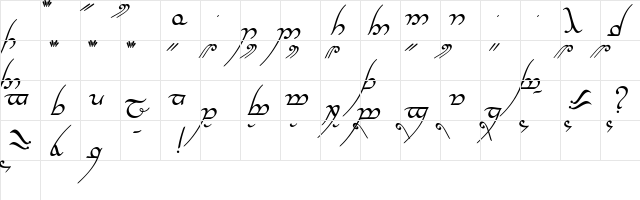
Tengwar Annatar Alt Italic
| Designer | Johan Winge |
Tengwar Annatar Alt takes a measured approach to typography — its balanced proportions and neutral character make it a reliable workhorse for both digital and print work. Its italic angle brings a sense of urgency and motion to the letterforms.
Pro Tip: Try Tengwar Annatar Alt for annotation and caption copy alongside an upright companion — the contrast in angle creates a dynamic but ordered typographic system.